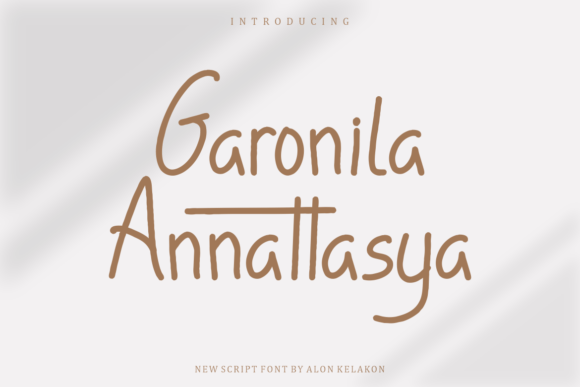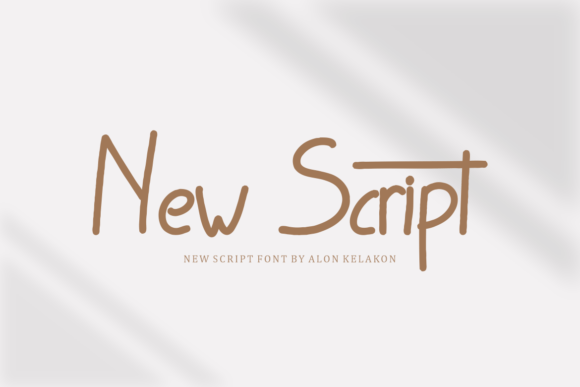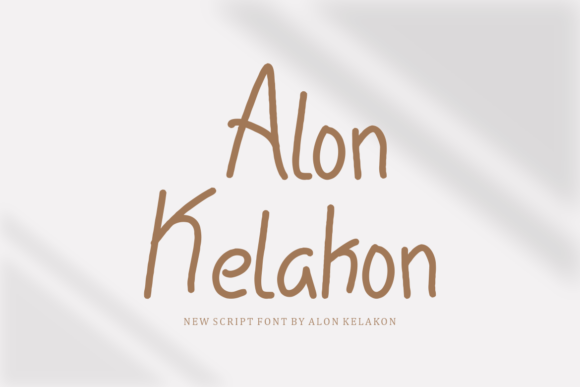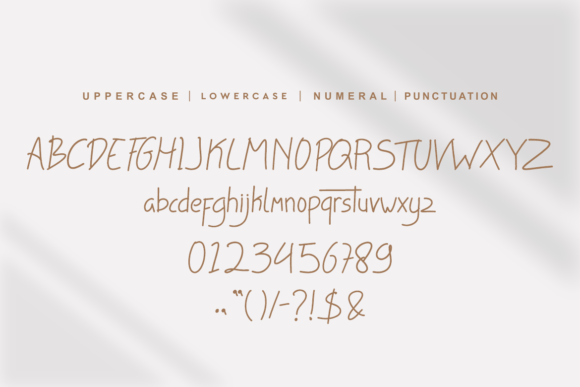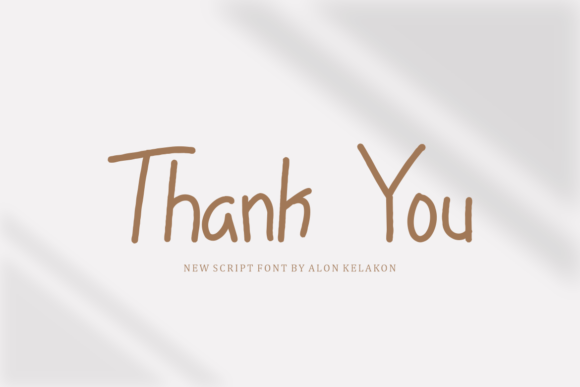
About Garonila Annattasya Font
“Garonila Annattasya” is not just a font; it’s a stylish script typeface designed to impart an elegant, classy, and modern look to your latest art projects. This beautiful script font goes beyond being a mere collection of characters—it becomes a means for you to add a personal touch and elevate the aesthetic of your creative endeavors.
The stylish nature of “Garonila Annattasya” is evident in its carefully crafted characters. The script font exudes sophistication and class, making it well-suited for a variety of design projects where an elegant and modern aesthetic is desired. Whether you’re working on invitations, branding, or any other creative venture, “Garonila Annattasya” stands out as a font that adds a touch of refinement.
The elegant, classy, and modern look of “Garonila Annattasya” contributes to its versatility. This font becomes a valuable asset for a range of art projects, where its contemporary flair resonates with current design trends. The modern touch ensures that it’s adaptable to various creative applications.
“Garonila Annattasya” offers a personal touch to your art projects through its script style. The flowing characters add a sense of individuality, making it an excellent choice for projects that require a unique and customized look. This font becomes an integral part of your artistic expression.
In summary, “Garonila Annattasya” is more than just a font; it’s a stylish script typeface that brings an elegant, classy, and modern look to your designs. Embrace its versatility for various art projects, confident that “Garonila Annattasya” will infuse your creations with sophistication and a personalized touch. Let it be the font that adds a touch of class to your latest artistic endeavors.